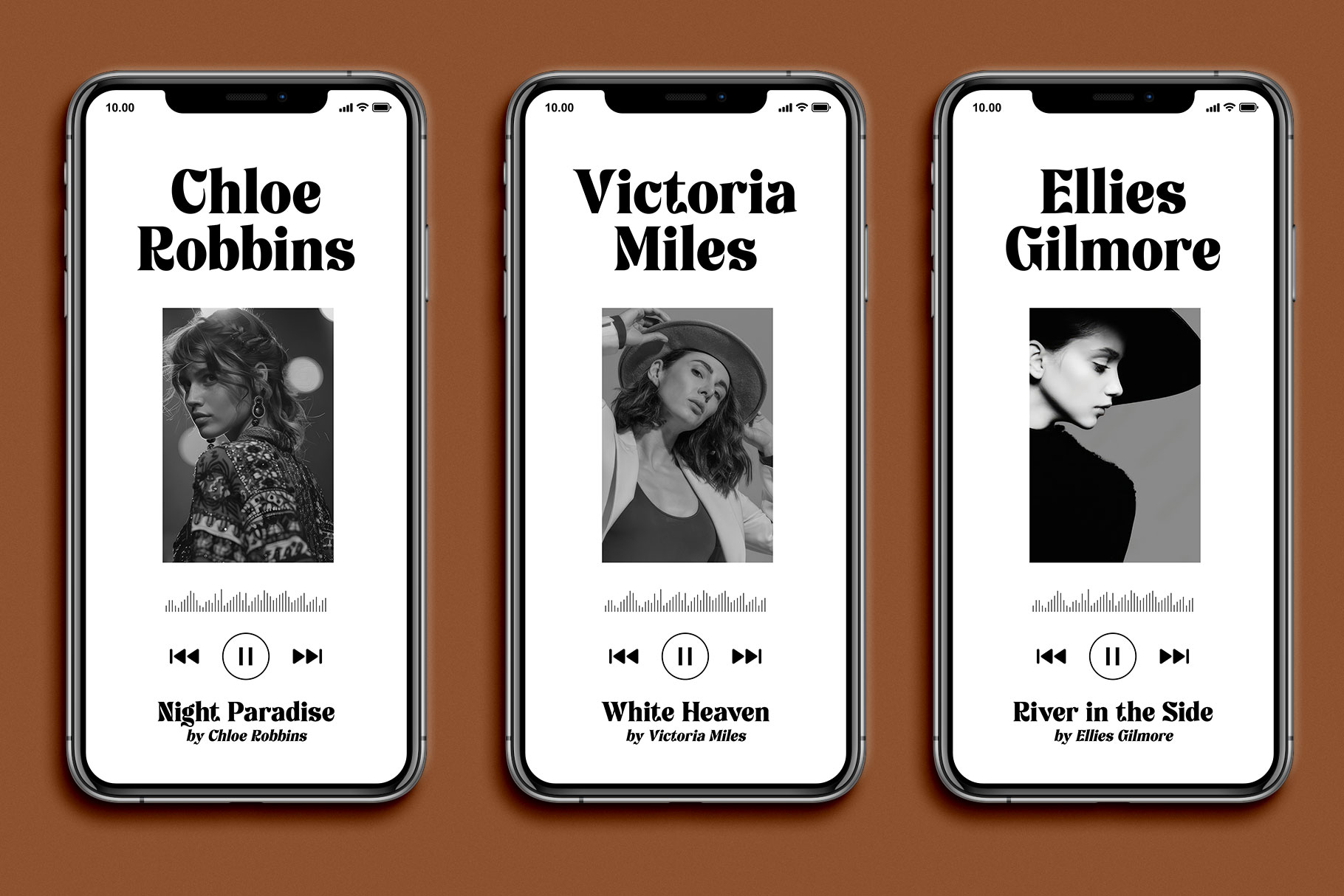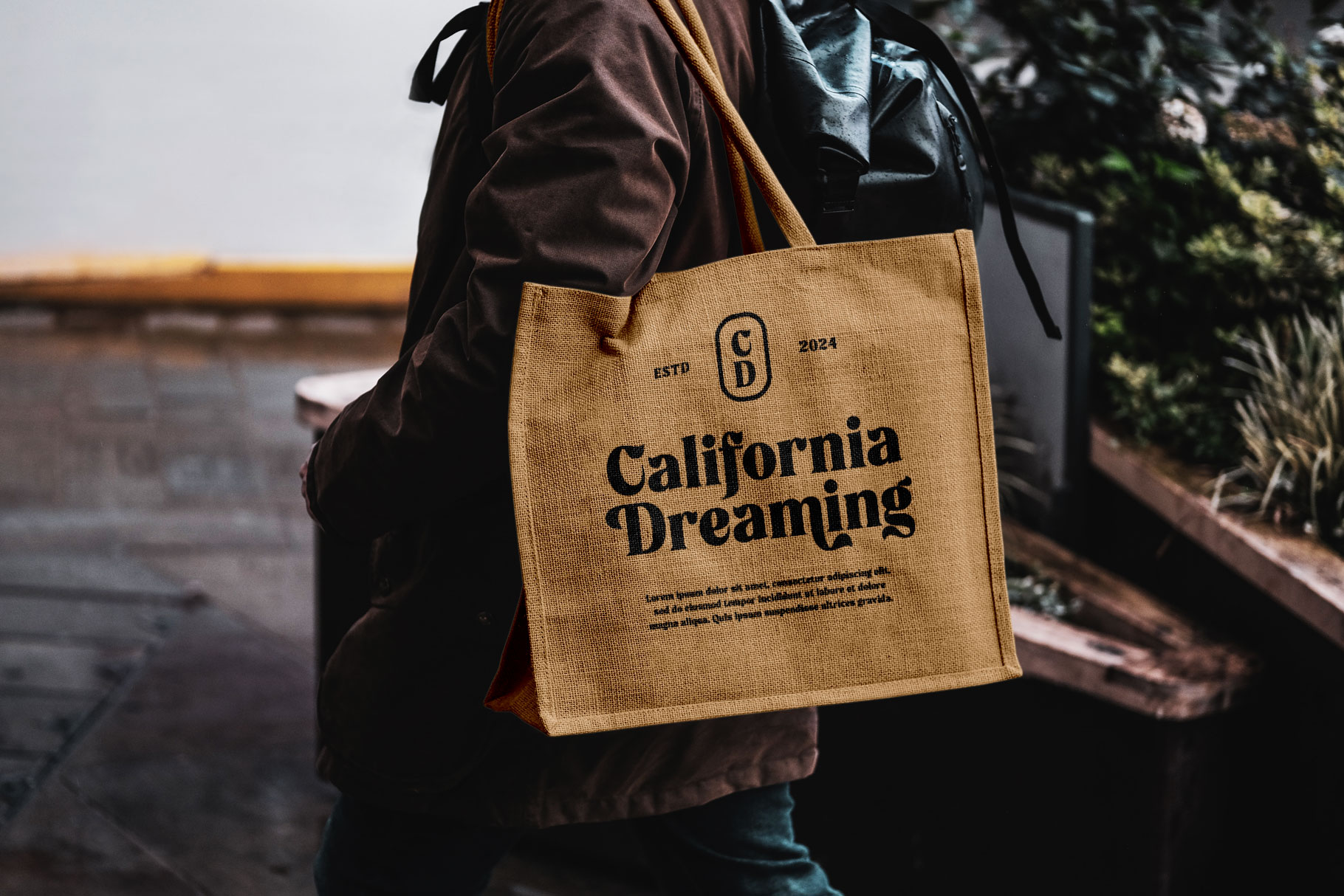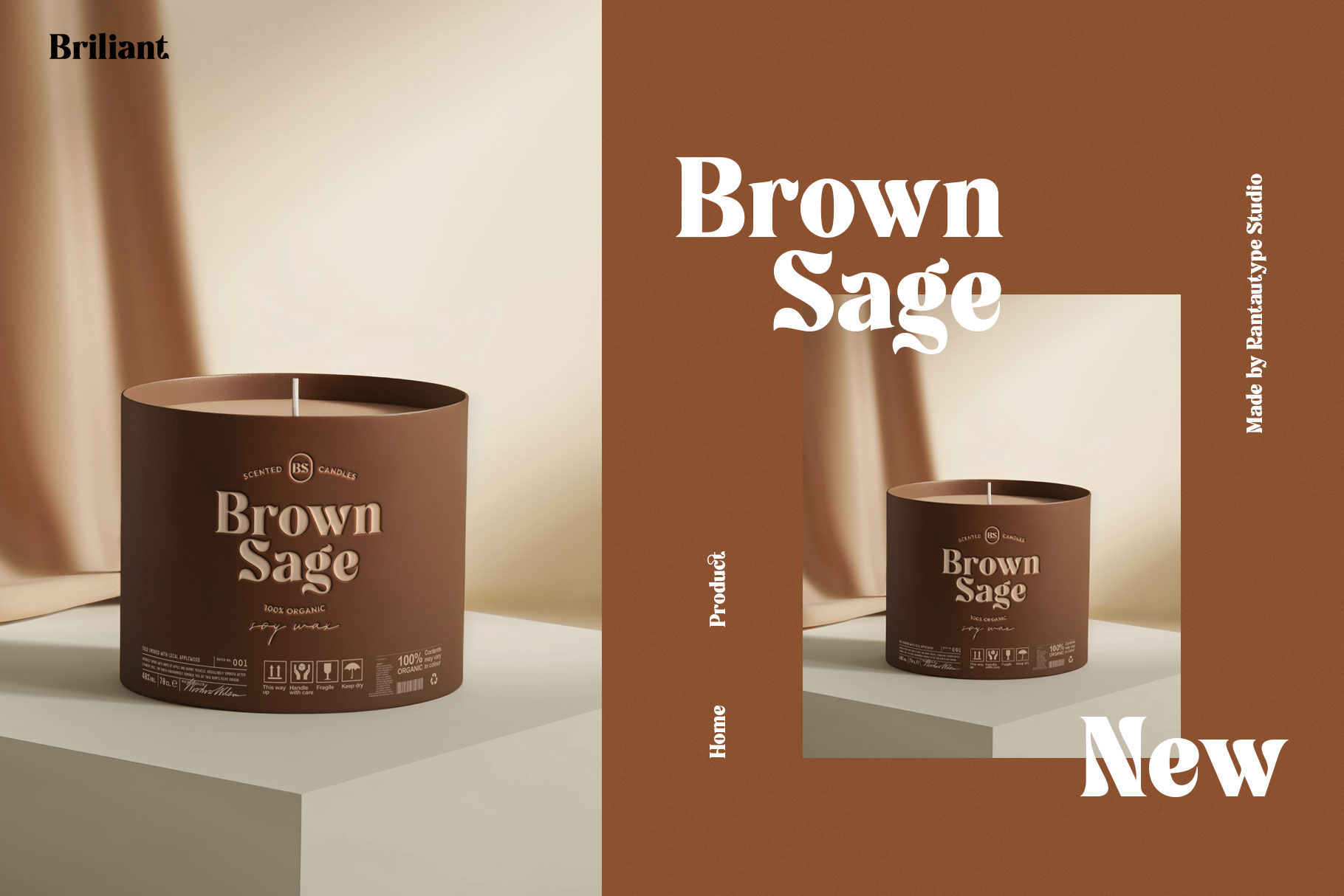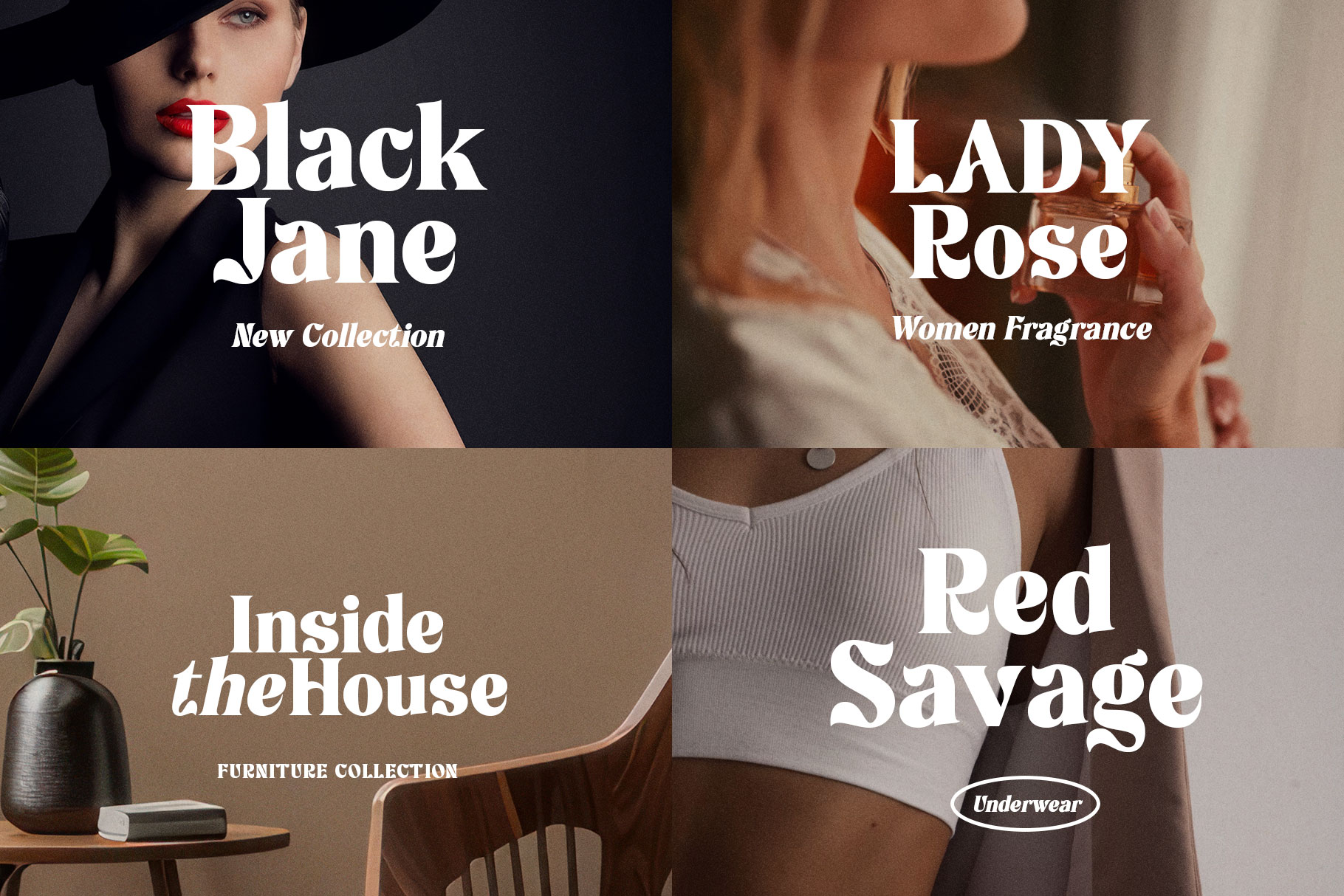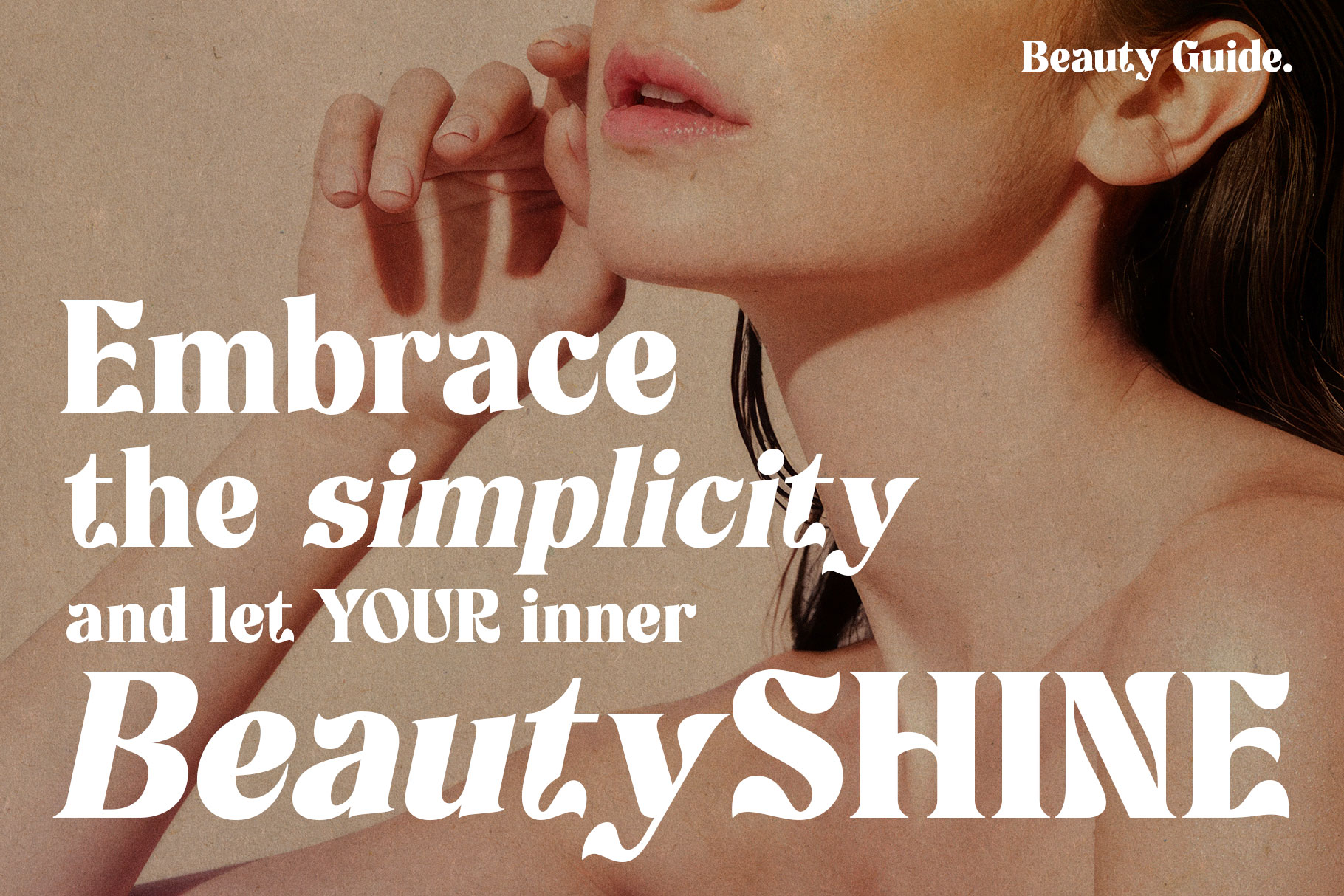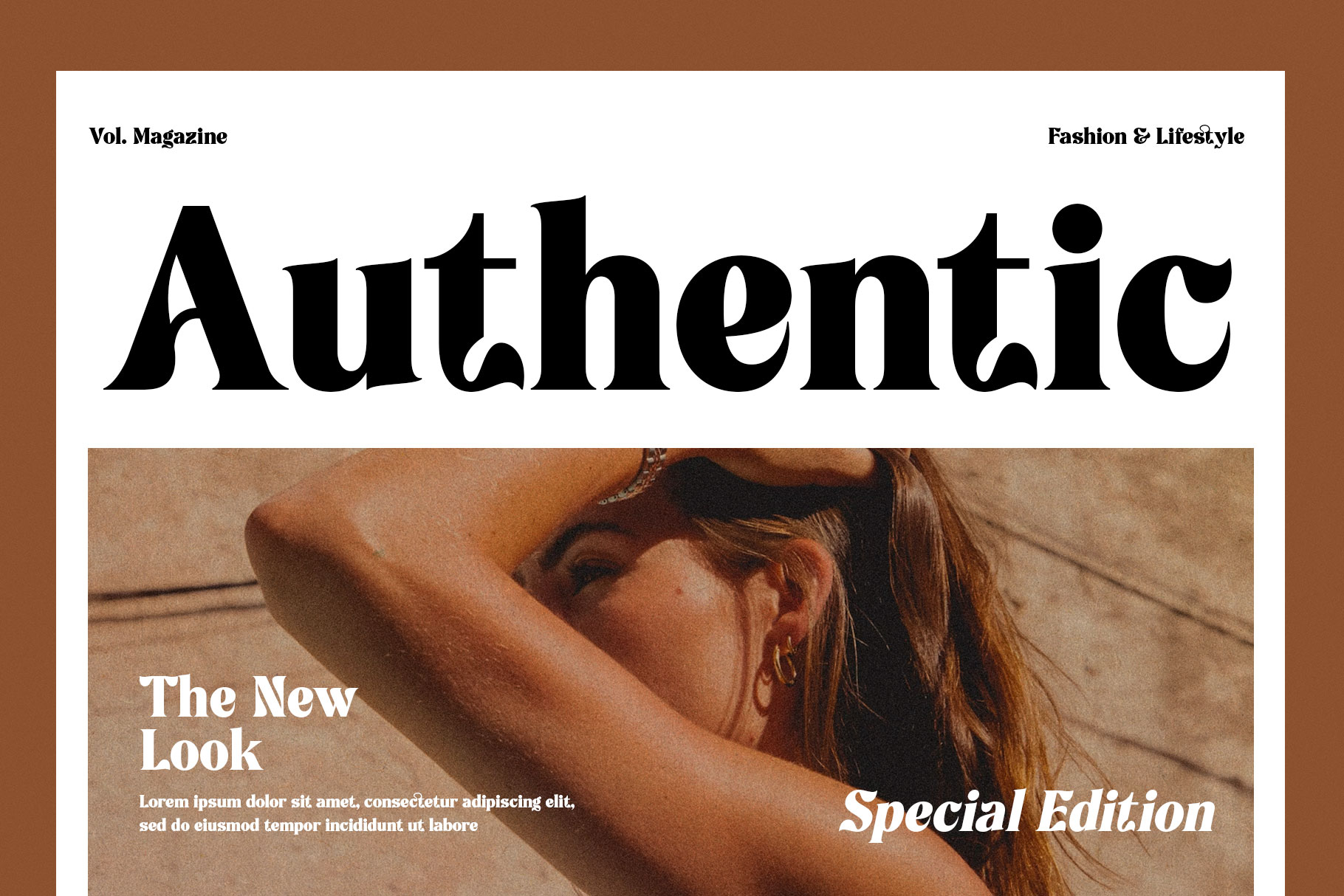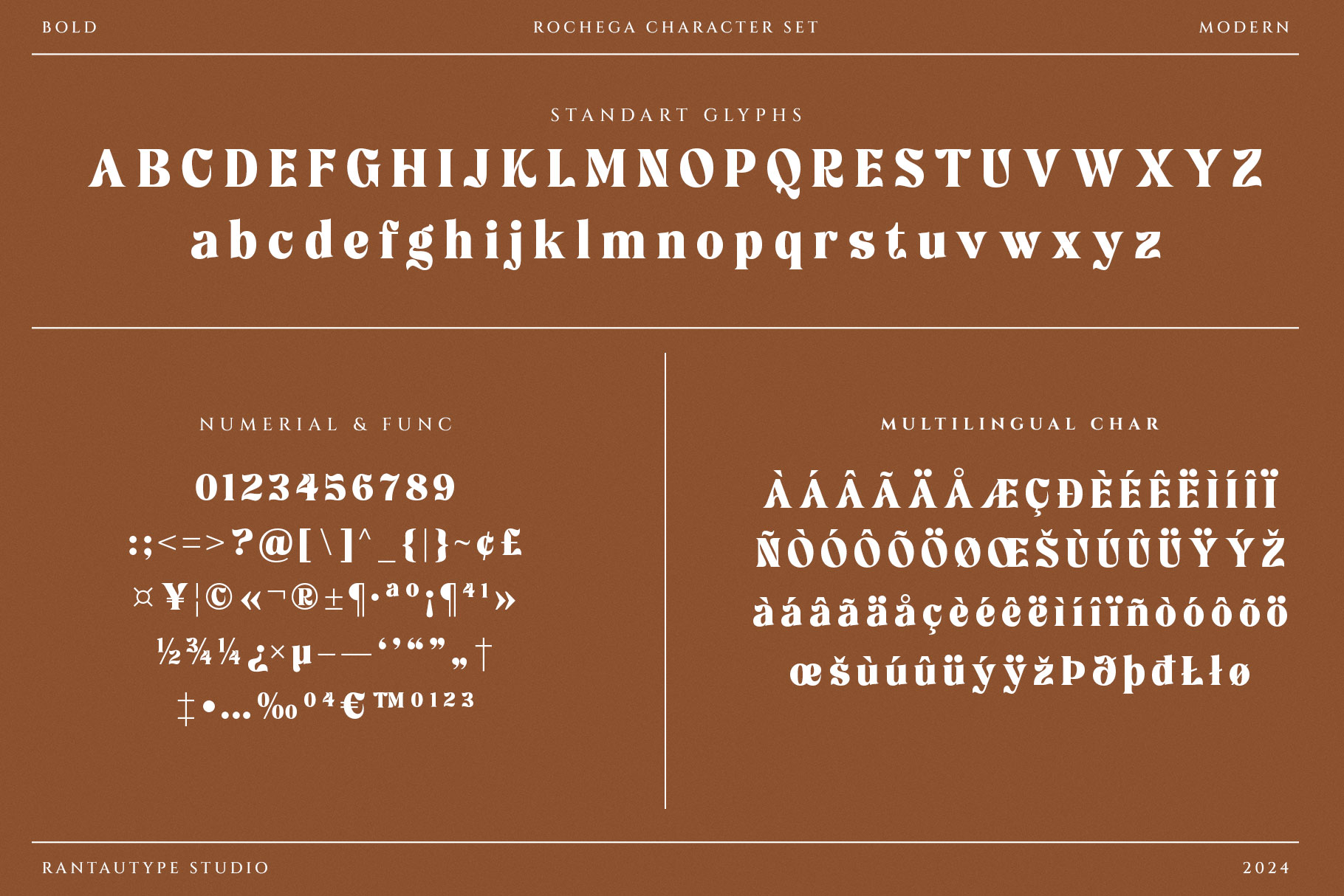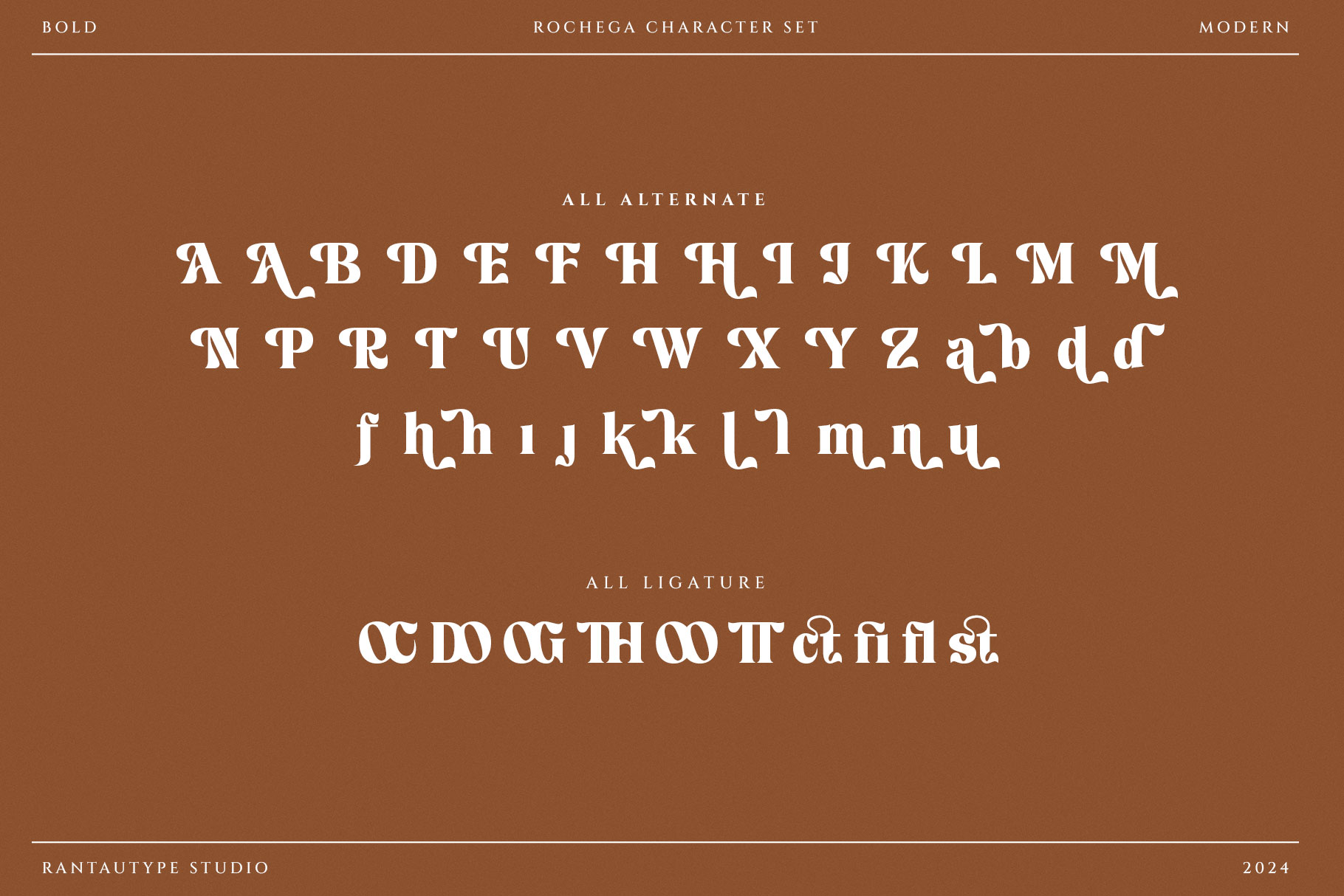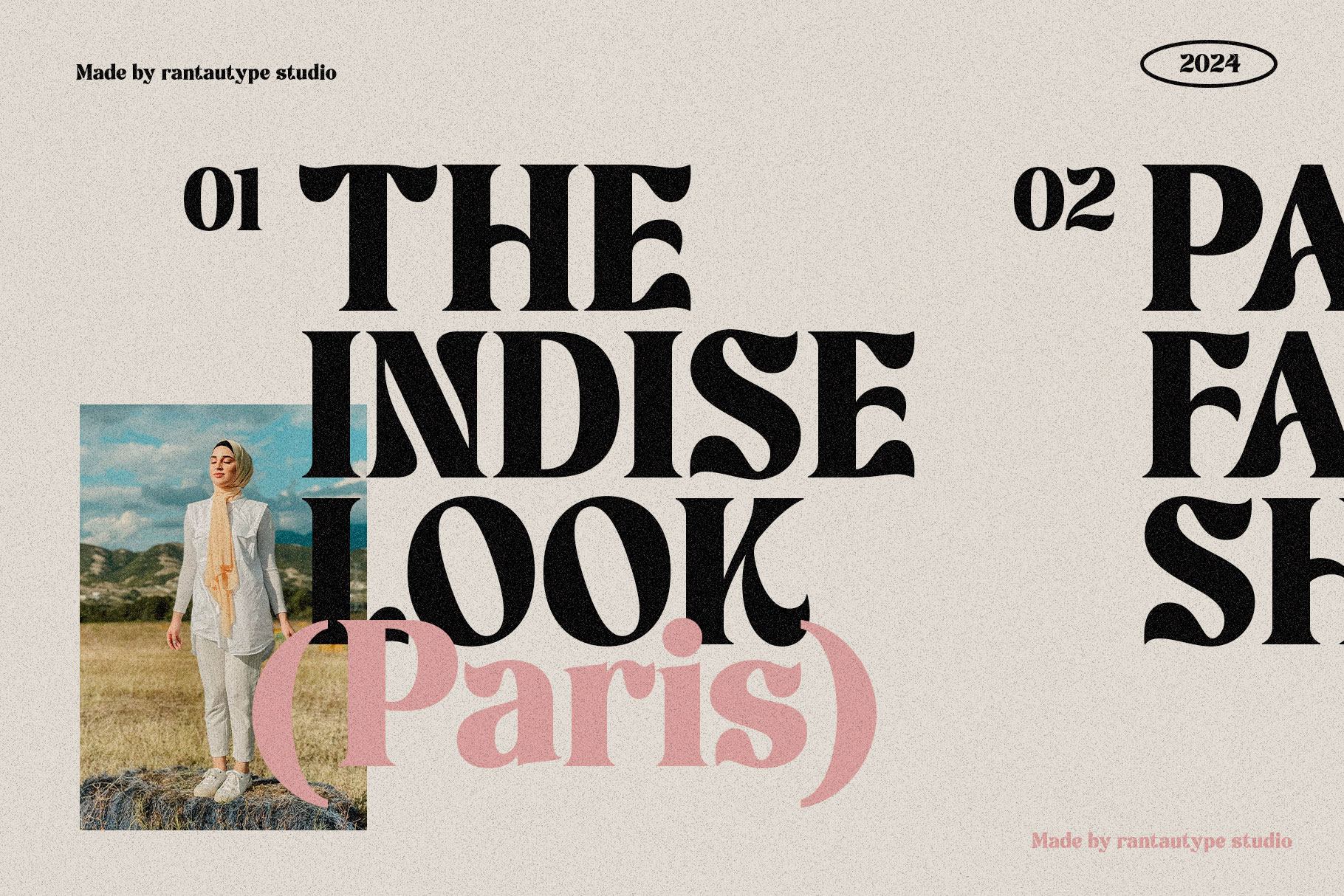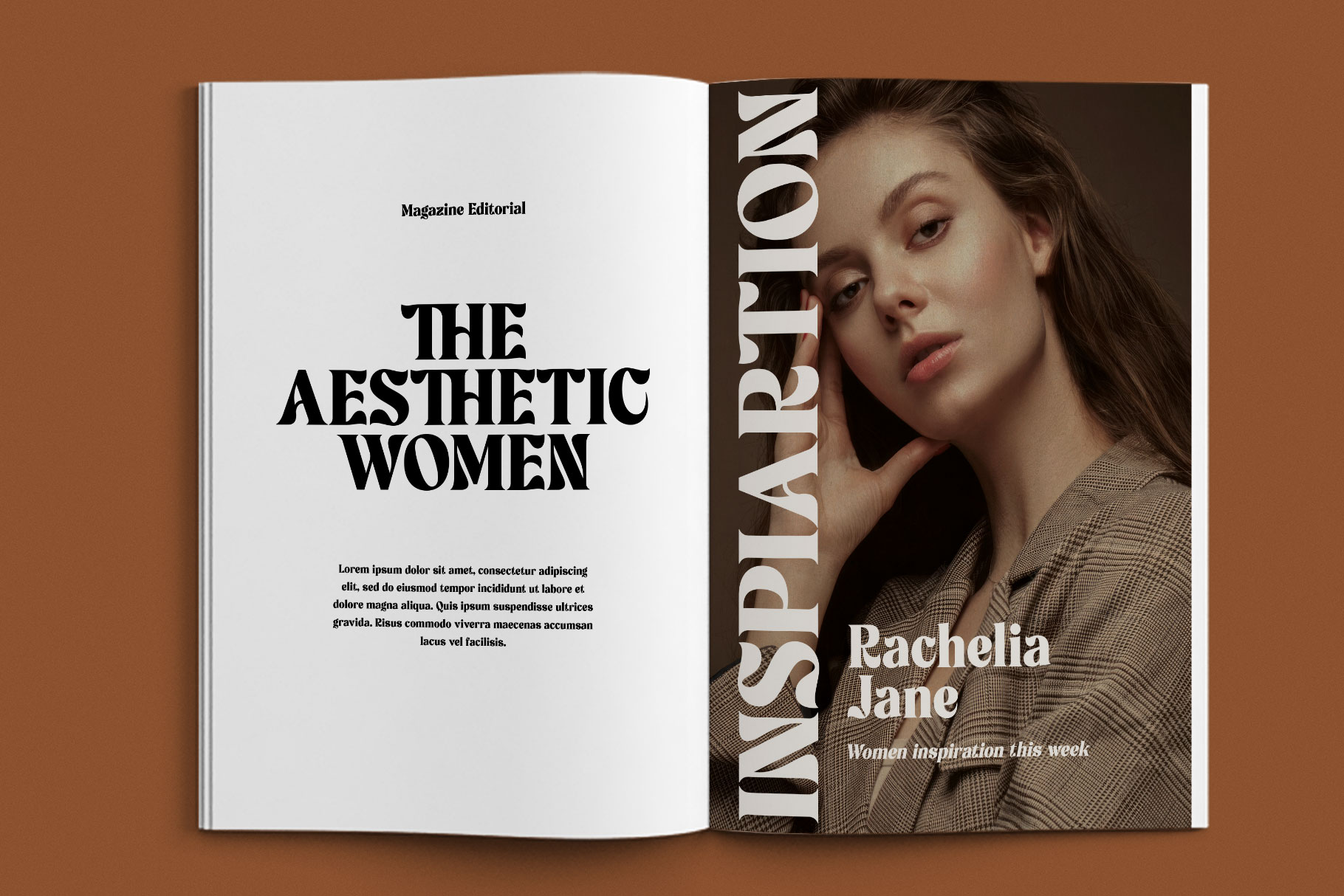
Rochega Bold Modern Serif Font
Rochega is modern contrast condensed display with bold stroke and elegance character. Rochega come to make your brand stand out with the feature.
Rochega is a beautiful choice for any creative endeavor, creating elegant, modern, chic, lifestyle design such as logotype, title, cover, branding, invitations, wedding designs, display and magazine, social media posts, advertisements, printed quotes, product packaging, corporate brand, product designs, labels, photography, watermarks, special events and any other project with retro or vintage touch.